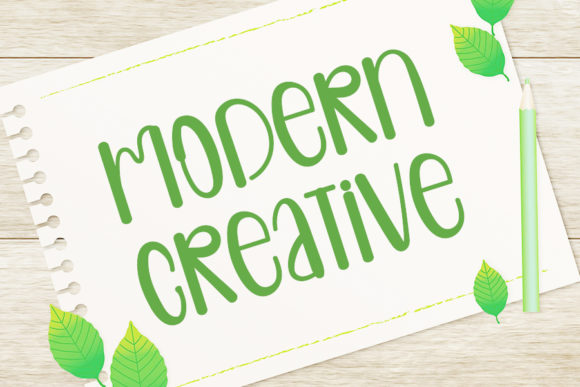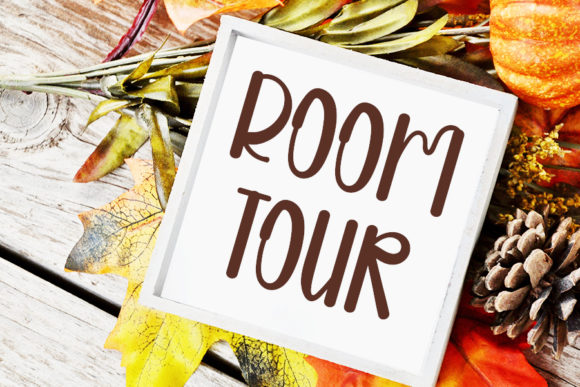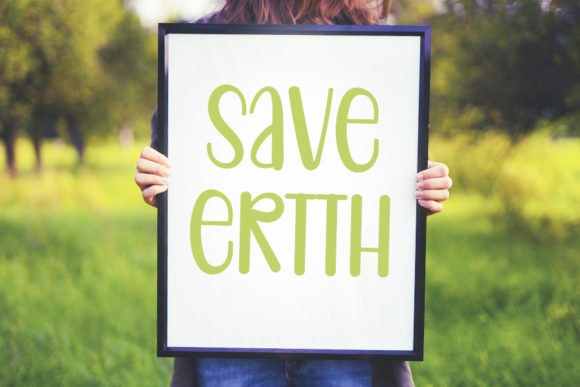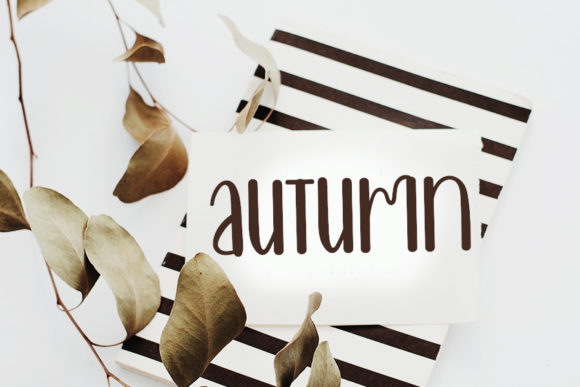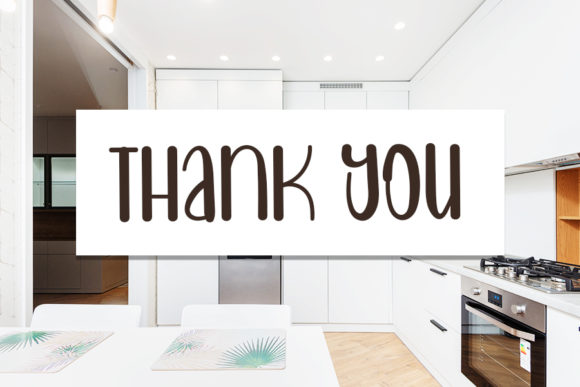
Stayhome Font
Stayhome is a quirky and sweet calligraphy typeface. Its distinct and well rounded letters make this font a masterpiece. Fall in love with its flexible style and use it to create spectacular designs!